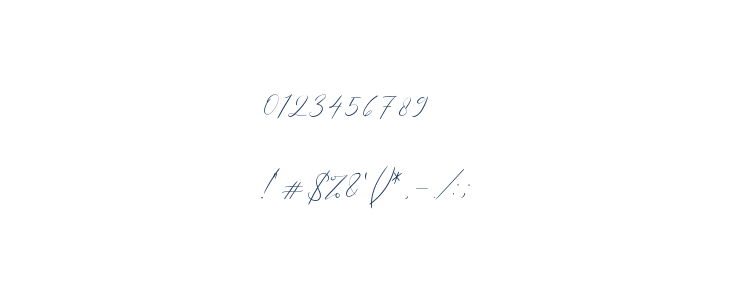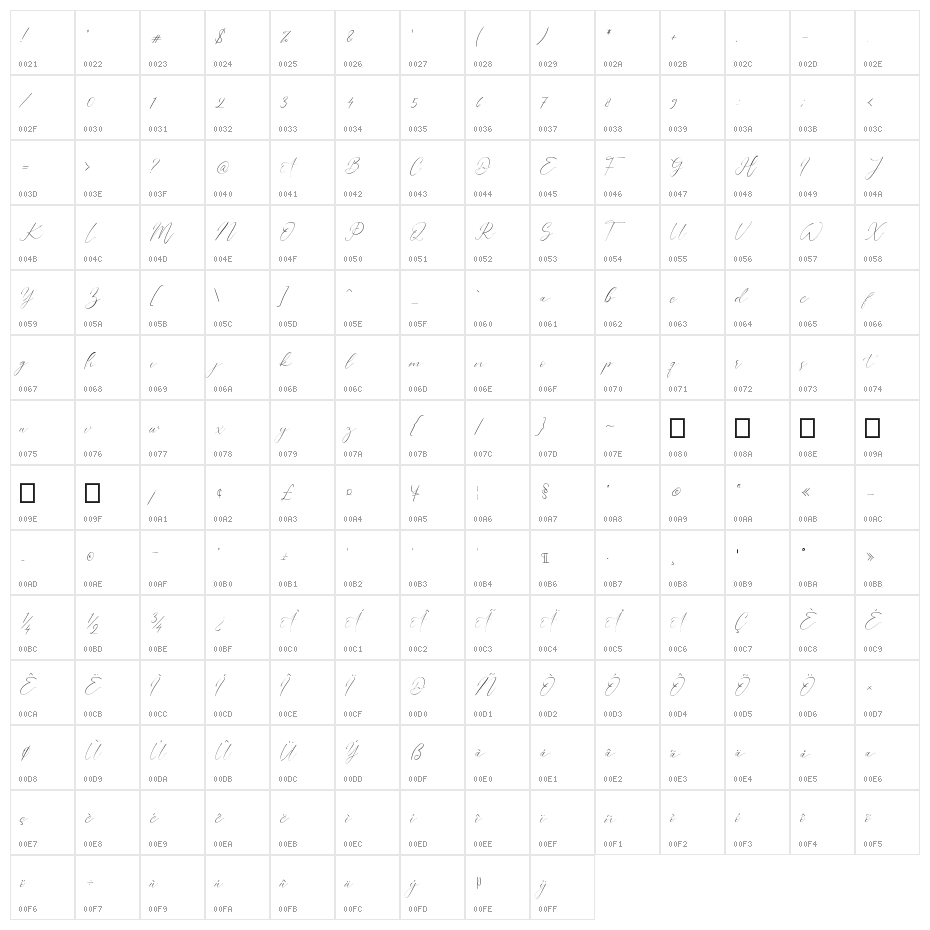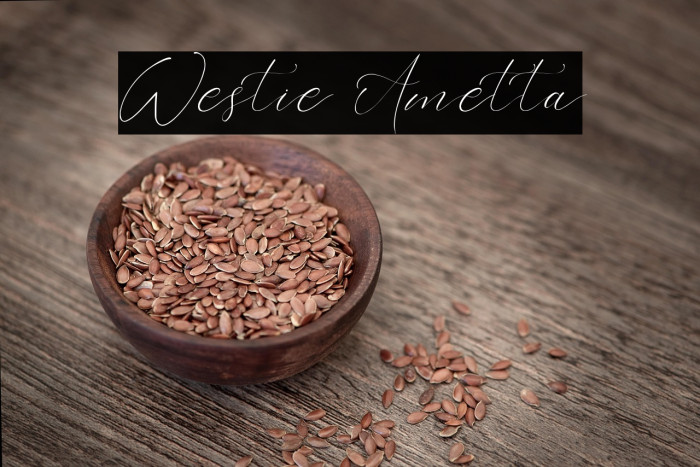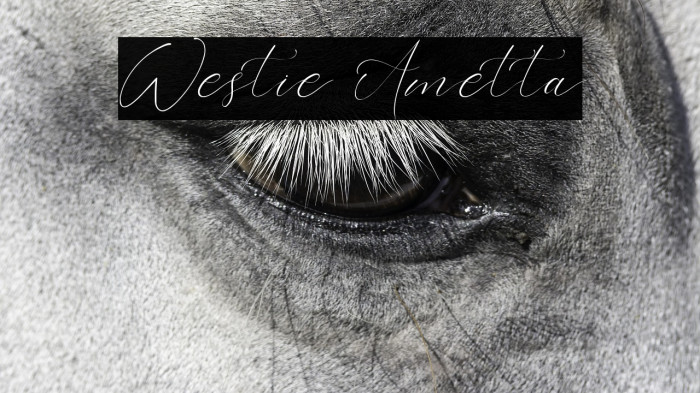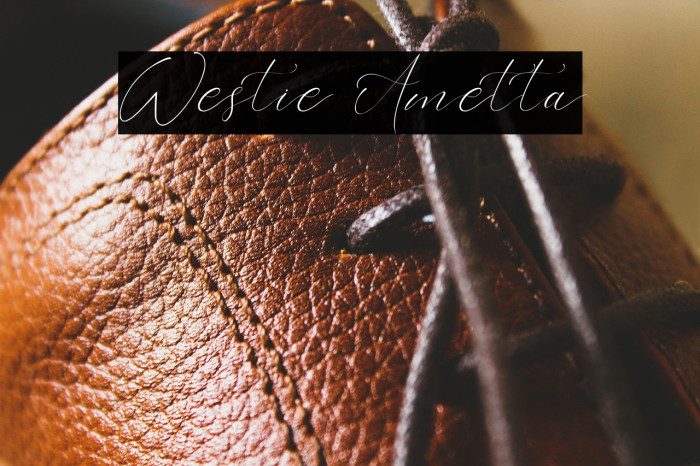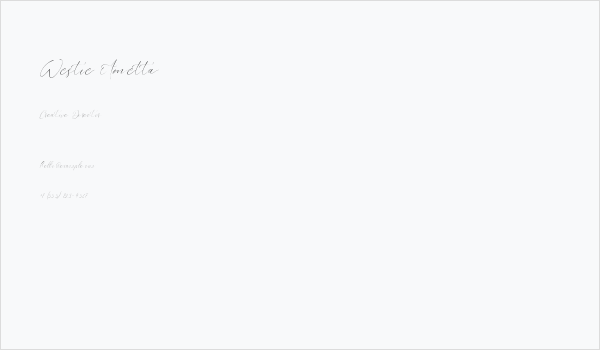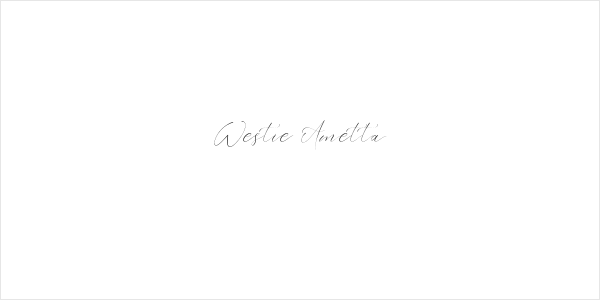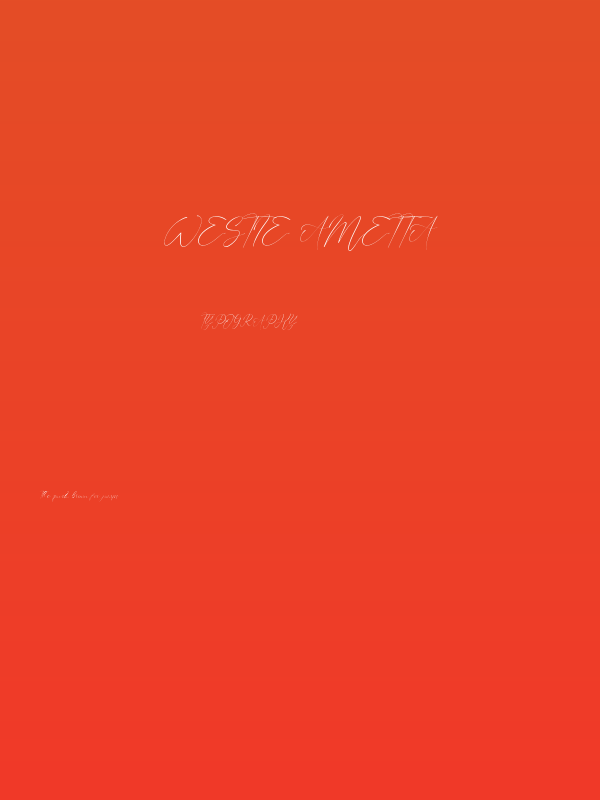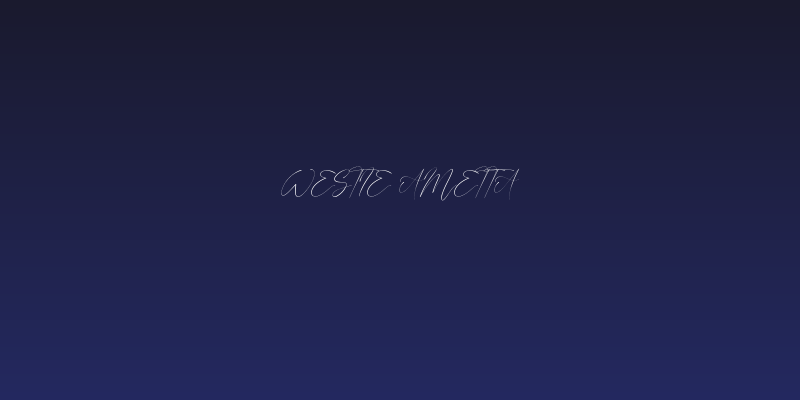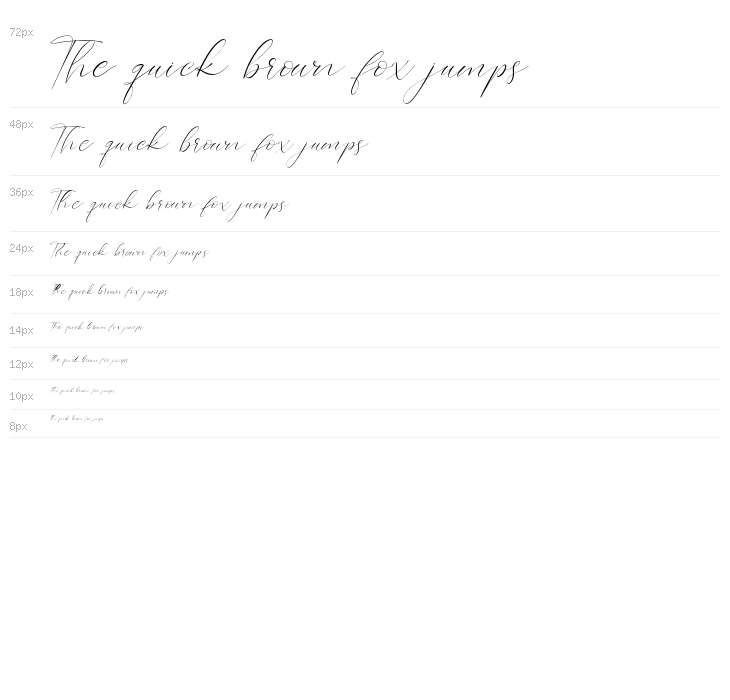
Westie Ametta Font
Westie Ametta Description
This elegant script font features fluid, graceful strokes that mimic the natural flow of handwriting. The characters are connected with smooth, sweeping lines, creating a sense of movement and sophistication. The uppercase letters are slightly more embellished, with extended flourishes that add a touch of drama. The lowercase letters maintain a consistent style, with gentle curves and loops that enhance readability. The numerals and special characters are designed to match the overall aesthetic, ensuring a cohesive look across all text. This font is perfect for projects that require a personal, artistic touch.
| Proposed Projects | Ideal for wedding invitations, greeting cards, personal branding, and elegant packaging. |